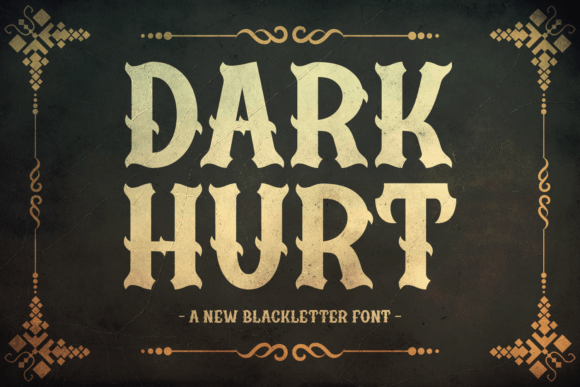
Introducing Dark Hurt: A Powerful Blackletter Font for Timeless Projects
In the realm of typography, few fonts evoke the sense of history, strength, and mystery as effectively as blackletter fonts. Among these, the “Dark Hurt” font stands out, offering a unique blend of classic aesthetics and rugged charm. This article delves into the world of “Dark Hurt,” a new blackletter font that has been carefully crafted to meet the needs of designers seeking a strong, old-world feel for their projects.
The “Dark Hurt” font is presented in a promotional image that showcases its distinctive characteristics. Enclosed within an ornate, decorative frame, the font’s design exudes a classic, historical, and rugged aesthetic. This visual representation not only highlights the font’s unique features but also provides a glimpse into its potential applications across various design projects.
Characteristics of Dark Hurt Font
The “Dark Hurt” font is a blackletter typeface, a style known for its dramatic flair and historical significance. Blackletter fonts, also known as Gothic scripts, were widely used in medieval Europe for manuscripts and early printed materials. The “Dark Hurt” font continues this tradition with a modern twist, offering a design that is both authentic and versatile.
- Classic Aesthetic: The font boasts a classic aesthetic that harks back to the medieval period. Its intricate letterforms and dramatic flourishes evoke a sense of history and tradition.
- Rugged Charm: Despite its historical roots, the “Dark Hurt” font also possesses a rugged charm that makes it suitable for projects that require a strong, bold look.
- Ornate Frame: The promotional image features the font enclosed within an ornate, decorative frame. This frame enhances the font’s classic and historical feel, making it perfect for designs that aim to evoke a sense of antiquity or mysticism.
Applications of Dark Hurt Font
The “Dark Hurt” font’s unique blend of classic and rugged aesthetics makes it suitable for a wide range of design projects. Here are some potential applications:
- Branding and Logos: The font’s strong, bold appearance makes it an excellent choice for branding and logos, particularly for companies looking to convey a sense of history, strength, or mystery.
- Advertising and Marketing: The “Dark Hurt” font can add a touch of drama and elegance to advertising and marketing materials, making it suitable for campaigns that aim to evoke a sense of luxury or exclusivity.
- Packaging: The font’s rugged charm and classic aesthetic make it a great choice for packaging designs, particularly for products that have a historical or artisanal feel.
- Digital Media: The “Dark Hurt” font can also be used in digital media, such as video games, movies, and television shows, to create a sense of atmosphere and immersion.
Typography Tips for Using Dark Hurt Font
To get the most out of the “Dark Hurt” font, here are some typography tips to keep in mind:
- Pair with Simple Fonts: The “Dark Hurt” font’s intricate design can be overwhelming when paired with other complex fonts. Pair it with simple, clean fonts to create visual contrast and hierarchy.
- Use Contrast: The font’s bold appearance can be used to create contrast and draw attention to specific elements in a design.
- Experiment with Colors: The “Dark Hurt” font can be used in a variety of colors, from deep blacks and dark grays to rich golds and bronzes. Experiment with different colors to find the one that best suits your design.
Insights for Designers
For designers looking to incorporate the “Dark Hurt” font into their projects, here are some insights to consider:
- Understand the Font’s History: The “Dark Hurt” font is rooted in medieval typography. Understanding its historical context can help designers appreciate its unique characteristics and use it more effectively.
- Balance is Key: The font’s bold appearance can be overwhelming if not balanced correctly. Make sure to balance the font with other design elements to create a visually appealing composition.
- Legibility: While the “Dark Hurt” font is designed to be visually striking, legibility is still important. Make sure to test the font in different sizes and contexts to ensure it remains readable.
The “Dark Hurt” font is a powerful blackletter typeface that offers a unique blend of classic aesthetics and rugged charm. Its ornate, decorative frame and bold appearance make it suitable for a wide range of design projects, from branding and logos to advertising and packaging. By understanding the font’s characteristics, applications, and typography tips, designers can effectively incorporate the “Dark Hurt” font into their projects and create timeless, visually stunning designs.